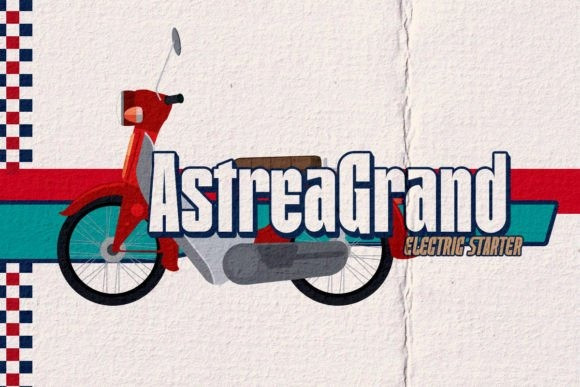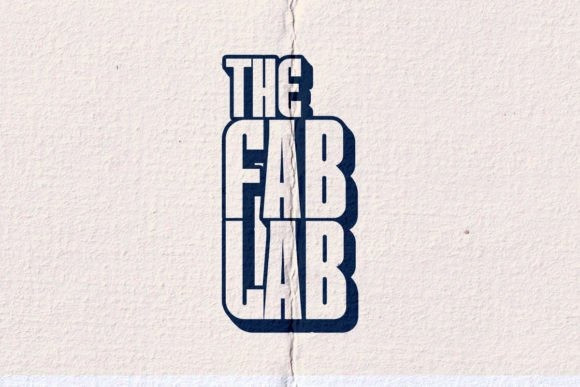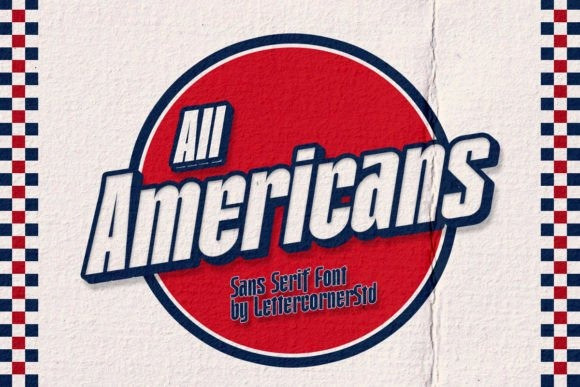
All Americans Font
All Americans Font is a sturdy font with strong character, inspired by the typeface in retro motorcycles.
All American has two types of letters, regular and oblique( Coming Soon ) . A simple font with a bold size with shadow line inside, make this font look elegant and classy impression. This typeface is perfect for an elegant logo, branding, movie poster, layout magazine, sport wear, packaging product, quotes, or simply as a stylish text overlay to any background image.